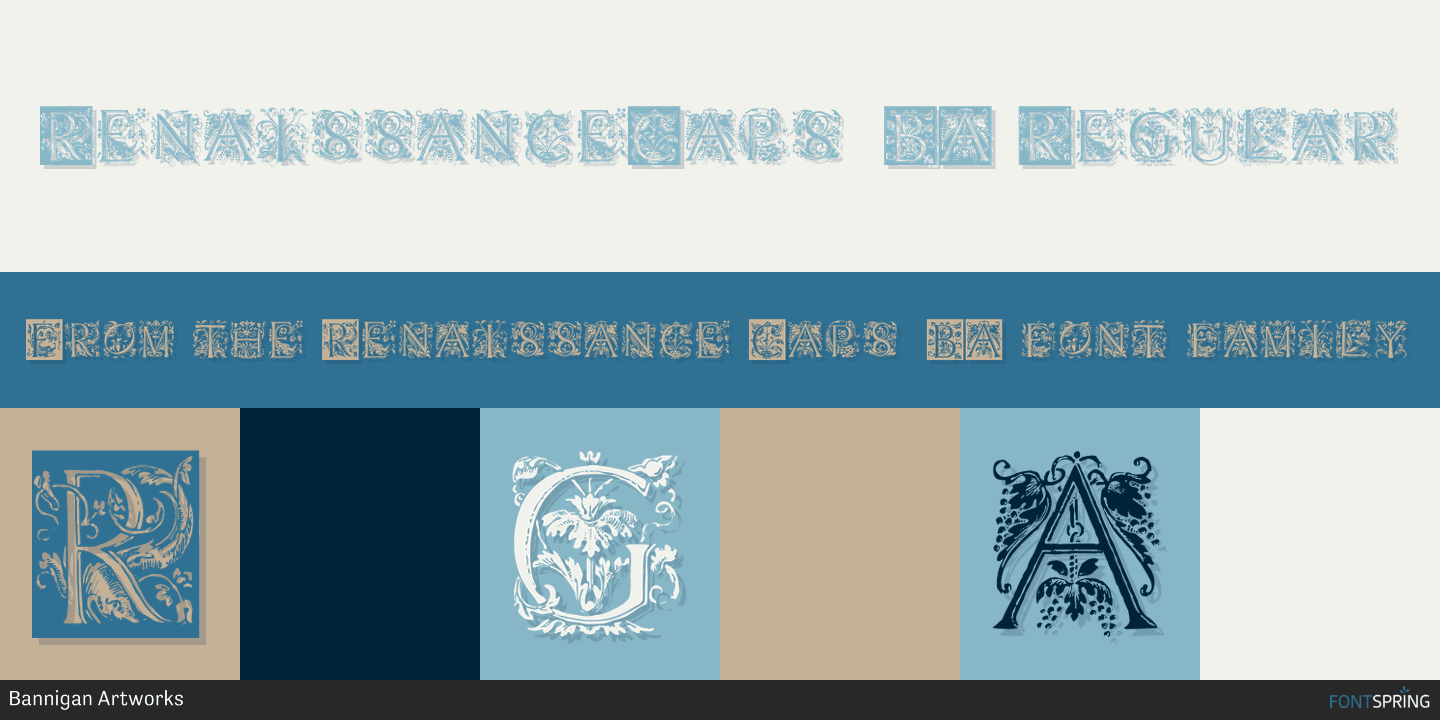
Renaissance Caps-BA is a monograms font published by Bannigan Artworks.
This is a revival font of a sixteenth century typeface. I kept this font as close as possible to the original letters, including the imperfections and irregularities, to preserve the look of antiquity.
Some of the letters of the original sample were missing and had to be created from the available letters.